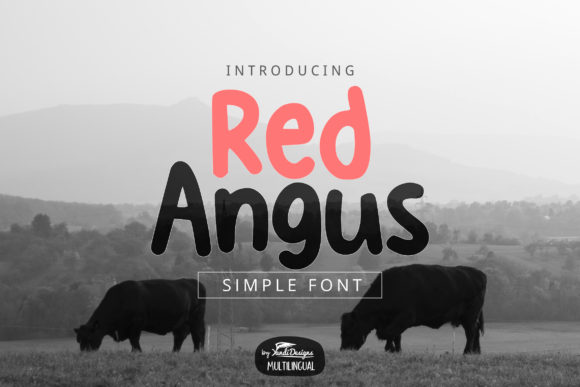
Introducing Red Angus Font: The Quintessential Display Font for Design Enthusiasts
Red Angus Font, the brainchild of YandiDesigns, is a captivating display font that strikes the perfect balance between playfulness and boldness. Its thick, cute letters exude a disarming charm that adds a touch of whimsy to any design project.
Red Angus Font: Designed to Make Your Designs Shine
With its charming and playful demeanor, Red Angus Font is the perfect choice for a wide range of design projects, from cheerful school assignments to whimsical invitations. Its bold and eye-catching presence makes it an ideal font for creating eye-catching logos, posters, and social media graphics that are sure to leave a lasting impression.
Red Angus Font: A Font for Every Occasion
Red Angus Font's versatility extends beyond its playful nature. Its thick, legible letters make it an excellent choice for creating informative flyers, brochures, and website content that demands clarity and readability. Whether you're designing for a playful event or crafting a professional presentation, Red Angus Font is up to the task.
Red Angus Font: The Key to Unlocking Your Design Potential
Red Angus Font is more than just a font; it's a gateway to unlocking your design potential. Its charming personality and bold presence will breathe life into your designs, adding a touch of whimsy and sophistication that will set your work apart. Unleash your creativity and let Red Angus Font guide you towards design greatness.